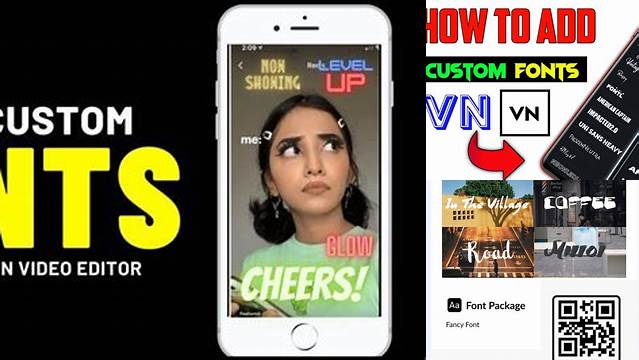
Best Fonts For VN Video Editor: Free Download Guide
Choosing the right font can significantly elevate your video editing projects in VN video editor. A great font not only makes your text look professional but also helps convey your message effectively. In this comprehensive guide, we’ll dive into the best fonts you can use for your VN video editor projects, where to find them for free, and how to install them. So, if you’re looking to add some visual flair to your videos, you’ve come to the right place! Let’s get started, guys!
1. Understanding the Importance of Fonts in Video Editing
Fonts are more than just letters; they are a crucial element in visual communication. In video editing, the right font can set the tone, enhance the message, and make your videos more engaging. Think about it – a playful font might be perfect for a kids' video, while a sleek, modern font would suit a tech review. The font you choose can influence how your audience perceives your content. Let's say you are making a tutorial video, a clear and legible font will ensure viewers can easily follow the instructions. On the other hand, for a cinematic vlog, a stylish and creative font can add to the aesthetic appeal. So, selecting the right font is not just about aesthetics; it's about creating an overall experience for your viewers. A great font acts as a silent narrator, adding depth and context to your visuals. Choosing the perfect fonts will enhance the professional look and feel of your video, making it stand out and capturing the attention of your audience. Experimenting with different font styles is key to finding the right fit for your projects. A good starting point is to consider the theme and mood of your video. Is it serious or lighthearted? Educational or entertaining? The font should complement the overall style of your content. For instance, if you’re creating a corporate video, you might opt for a clean and professional font like Helvetica or Arial. These fonts are easy to read and convey a sense of reliability. In contrast, if you’re working on a travel vlog, you might choose a more adventurous and unique font that reflects the excitement and spontaneity of travel. This could include handwritten-style fonts or fonts with a touch of personality.
2. Top Font Styles for VN Video Editor
When it comes to video editing with VN, certain font styles tend to work exceptionally well. Think about what makes a font truly stand out on screen. First, legibility is key. Your viewers need to be able to read the text quickly and easily, especially in fast-paced videos. So, fonts that are clear and uncluttered are generally a good choice. Secondly, consider the visual impact. A font should complement your video content, not distract from it. This means choosing a font that matches the tone and style of your video. For example, a sleek, sans-serif font might be perfect for a tech review, while a more decorative font could work well for a creative project. There are several broad categories of fonts that you can explore. Serif fonts, with their little decorative strokes, can add a touch of elegance and formality. Sans-serif fonts, which are cleaner and more modern, often work well for on-screen text. Script fonts can bring a personal and artistic touch, but they should be used sparingly to ensure readability. Display fonts are designed to be eye-catching and are great for titles and headings, but they might not be suitable for large blocks of text. Within these categories, there’s a huge range of styles to choose from. You might find a bold and impactful font that commands attention or a subtle and understated font that blends seamlessly into the background. The key is to experiment and see what works best for your particular project. Remember, the right font can make a big difference in how your video is perceived, so it’s worth taking the time to explore your options and find the perfect fit. Great typography is an art, and with VN video editor, you have the tools to express your creativity through fonts!
3. Serif Fonts for a Classic Look
Serif fonts are characterized by the small decorative strokes (or “serifs”) at the end of each character. This classic style of font often conveys a sense of elegance, tradition, and authority. In video editing, serif fonts can be a fantastic choice when you want to add a touch of sophistication or formality to your project. Imagine you are creating a historical documentary or a wedding video; a well-chosen serif font can enhance the overall feel and aesthetic. Some of the most popular serif fonts include Times New Roman, Garamond, and Georgia. These fonts are known for their readability and timeless appeal. However, it’s important to use them judiciously in video editing. Because of the serifs, these fonts can sometimes appear a bit cluttered on screen, especially in smaller sizes or with lower resolutions. Therefore, it's best to use serif fonts for titles, headings, or short text segments where clarity is still maintained. Think about the overall context of your video when deciding if a serif font is the right choice. If your video has a vintage or classic theme, a serif font can be a perfect fit. On the other hand, if you are aiming for a modern or minimalist look, a sans-serif font might be more appropriate. When using serif fonts, pay attention to spacing and kerning. Proper spacing between letters and lines is crucial for ensuring legibility. You might need to adjust these settings in your video editing software to achieve the best results. Also, consider the color of your font and the background. High contrast between the text and the background will make the font easier to read. White text on a dark background or vice versa is often a safe and effective choice. In conclusion, serif fonts are a valuable tool in your video editing arsenal, offering a timeless and elegant look. By understanding their strengths and limitations, you can use them effectively to enhance your videos and convey your message with style and sophistication.
4. Sans-Serif Fonts for a Modern Feel
Sans-serif fonts are known for their clean, modern, and minimalist appearance. Unlike serif fonts, they lack the small decorative strokes at the end of each character, giving them a more streamlined and contemporary look. In video editing, sans-serif fonts are incredibly versatile and widely used, especially for on-screen text where legibility is paramount. If you’re aiming for a sleek, professional, or tech-savvy vibe, sans-serif fonts are an excellent choice. Think about the kinds of videos where these fonts shine. They are perfect for explainer videos, tutorials, corporate presentations, and any content that needs to convey information clearly and efficiently. Some popular sans-serif fonts include Arial, Helvetica, Open Sans, and Roboto. These fonts are favored for their readability and simple aesthetics, making them easy on the eyes even in smaller sizes or at a distance. One of the key advantages of sans-serif fonts is their clarity on screens. The absence of serifs means the characters appear cleaner and less cluttered, which is particularly important for videos viewed on various devices, from large monitors to small smartphone screens. When using sans-serif fonts in your video projects, consider the overall tone and style of your content. A bold sans-serif font can make a strong statement in titles and headings, while a lighter weight might be better suited for body text or captions. The flexibility of sans-serif fonts also means they can be paired effectively with other font styles. For example, you might use a bold sans-serif font for titles and a serif font for longer text segments to create a visual contrast and enhance readability. Another important aspect to consider is the spacing and alignment of your text. Sans-serif fonts often look best with generous spacing between letters and lines, which helps to prevent the text from appearing too dense. Experiment with different alignments to see what works best for your layout. In summary, sans-serif fonts are a staple in modern video editing. Their clean lines and excellent readability make them a go-to choice for a wide range of projects, ensuring your message is delivered clearly and stylishly. By understanding how to use them effectively, you can create videos that look professional and engaging.
5. Script Fonts for an Elegant Touch
Script fonts are designed to mimic the flowing strokes of handwriting, giving them a personal, elegant, and often romantic feel. These fonts can add a touch of sophistication and artistry to your video projects, but they need to be used carefully to ensure readability. Imagine using a script font for the title of a wedding video or a heartfelt message in a personal vlog. When done right, script fonts can create a beautiful and memorable visual impact. However, because of their intricate and sometimes ornate designs, script fonts are not always the best choice for large blocks of text or situations where quick readability is essential. Some popular script fonts include Brush Script, Pacifico, and Great Vibes. These fonts range from casual and playful to formal and elegant, so there’s a wide variety to choose from depending on the mood you want to create. The key to using script fonts effectively in video editing is to reserve them for specific elements, such as titles, headings, or short quotes. Overusing script fonts can make your video look cluttered and difficult to read. Think of them as accents rather than the main body of your text. When selecting a script font, consider the overall style and tone of your video. A formal script font might be perfect for a wedding or anniversary video, while a more casual script font could work well for a creative project or personal vlog. It's also important to ensure the script font complements the other fonts you are using in your video. Pairing a script font with a clean sans-serif font can create a nice contrast and balance. Pay close attention to spacing and sizing when using script fonts. Because of their flowing lines, script fonts often require more spacing between letters and lines to maintain readability. Also, avoid using script fonts in small sizes, as the details can become lost and the text can become difficult to decipher. In conclusion, script fonts can add a touch of elegance and personality to your videos. By using them strategically and ensuring readability, you can create a sophisticated and visually appealing look that enhances your message and captivates your audience. Remember, a little goes a long way, so use script fonts thoughtfully to make the most impact.
6. Display Fonts for Eye-Catching Titles
Display fonts are designed to grab attention and make a statement. These fonts are typically more decorative and unique than standard fonts, making them ideal for titles, headings, and other prominent text elements in your videos. Imagine you’re creating a promotional video or a dynamic opening sequence; a well-chosen display font can instantly capture your viewer’s attention and set the tone for your content. Display fonts come in a vast range of styles, from bold and impactful to whimsical and playful. Some might have unusual shapes, textures, or decorative elements that set them apart from more traditional fonts. Popular examples include Impact, Bebas Neue, and Montserrat, but there are countless others to explore. The key to using display fonts effectively in video editing is to ensure they stand out without overwhelming the rest of your video. Because they are often highly stylized, display fonts are best used sparingly. Reserve them for key moments where you want to make a strong visual impression. Think about the overall theme and style of your video when selecting a display font. If you’re creating a high-energy action video, a bold and dynamic display font might be perfect. On the other hand, if you’re working on a more artistic or creative project, you might opt for a display font with a unique and expressive design. Avoid using display fonts for large blocks of text or captions, as their decorative nature can make them difficult to read. Instead, pair them with simpler fonts for body text to ensure clarity and balance. When using display fonts, pay attention to sizing and spacing. Because they are designed to be eye-catching, display fonts often look best in larger sizes. However, you also need to ensure they don’t dominate the screen or clash with other visual elements in your video. Proper spacing between letters and lines is also crucial for maintaining readability. In summary, display fonts are a powerful tool for creating visually striking videos. By using them strategically and considering the overall design of your project, you can add a unique and memorable touch that captivates your audience. Remember, the right display font can transform a title from ordinary to extraordinary, so take the time to explore your options and find the perfect fit.
7. Finding Free Fonts for VN Video Editor
One of the best things about video editing today is the abundance of resources available online, including a vast selection of free fonts. Finding high-quality fonts for your VN video editor projects doesn’t have to break the bank. There are numerous websites and online platforms that offer fonts for free, allowing you to add a professional touch to your videos without spending a dime. Guys, let’s explore some of the best places to find these fonts! A popular resource for free fonts is Google Fonts. This platform offers a wide variety of open-source fonts that are free to use for both personal and commercial projects. The fonts are well-organized, easy to browse, and can be downloaded directly to your computer. Plus, Google Fonts provides helpful information about each font, including its styles, pairings, and usage examples, making it easier to choose the right font for your project. Another fantastic website is DaFont. DaFont boasts an extensive collection of fonts, contributed by designers from around the world. The fonts are categorized by style, making it easy to find what you’re looking for, whether it’s a script font for a wedding video or a bold display font for a promotional clip. However, it’s important to pay attention to the licensing terms for each font on DaFont, as some may be free for personal use only. Font Squirrel is another great resource for free, high-quality fonts. What sets Font Squirrel apart is its focus on commercial-use fonts. This means that the fonts you find on this site are safe to use in your professional video projects without worrying about licensing issues. The website also offers a handy Font Identifier tool, which can help you identify a font you’ve seen elsewhere. 1001 Free Fonts is a website that lives up to its name, offering a huge selection of free fonts in various styles and categories. The site is easy to navigate, and the fonts are clearly labeled with their licensing terms. Like DaFont, it’s essential to double-check the license before using a font commercially. In addition to these websites, you can also find free fonts on platforms like Behance and Dribbble, where designers often share their creations for free or offer them as part of their portfolios. These sites can be a great source for unique and creative fonts that you won’t find anywhere else. In summary, finding free fonts for VN video editor is easier than you might think. With so many resources available online, you can access a vast library of fonts to enhance your videos and bring your creative vision to life. Just remember to always check the licensing terms to ensure you’re using the fonts appropriately.
8. Google Fonts: A Treasure Trove
Google Fonts is a true treasure trove for anyone looking for high-quality, free fonts for their video editing projects. This platform is a go-to resource for designers, video editors, and content creators worldwide, and for good reason. It offers a vast library of open-source fonts that are not only free to use but also incredibly versatile and easy to access. One of the standout features of Google Fonts is its user-friendly interface. The website is designed to make font discovery simple and intuitive. You can browse fonts by category (serif, sans-serif, display, handwriting, monospace), apply filters based on style and thickness, and even preview the fonts in different sizes and contexts. This makes it easy to find the perfect font for your VN video editor projects. Another major advantage of Google Fonts is that all the fonts are open-source. This means you can use them freely for both personal and commercial projects without worrying about licensing fees or restrictions. This is a huge benefit for video editors who want to maintain a professional look without incurring additional costs. The Google Fonts library is constantly growing, with new fonts being added regularly. This ensures that you always have fresh options to choose from and can keep your video projects looking modern and up-to-date. Whether you need a clean sans-serif font for an explainer video or a stylish script font for a wedding montage, you’re likely to find it on Google Fonts. Beyond just offering a wide selection of fonts, Google Fonts also provides helpful information and resources. Each font page includes details about the font’s designer, its history, and recommended pairings with other fonts. This can be incredibly useful for video editors who want to create a cohesive and visually appealing design. You can also test out the font with your own text and see how it looks in different sizes and styles. Integrating Google Fonts into your VN video editor workflow is seamless. You can download the fonts directly to your computer and install them, or you can use Google Fonts’ API to embed the fonts directly into your video editing software. This flexibility makes it easy to incorporate Google Fonts into any project. In summary, Google Fonts is an invaluable resource for video editors. Its vast library of free, high-quality fonts, user-friendly interface, and helpful resources make it a must-visit for anyone looking to enhance their video projects with beautiful typography. So, guys, if you haven’t already, be sure to check out Google Fonts and see what it has to offer!
9. DaFont: A Diverse Selection
DaFont is another fantastic online resource for finding a diverse selection of fonts that you can use in your VN video editor projects. This website has become a favorite among designers and content creators for its extensive library of fonts, contributed by designers from around the globe. Guys, if you’re looking for variety and unique font styles, DaFont is definitely worth exploring! One of the standout features of DaFont is its sheer size. The website boasts thousands of fonts, ranging from classic styles to quirky and creative designs. This means you can find a font to suit just about any video project, whether you’re working on a corporate presentation, a personal vlog, or a dynamic promotional video. DaFont’s fonts are organized into a variety of categories, making it easy to find what you’re looking for. You can browse by style (e.g., script, sans-serif, serif, display), theme (e.g., horror, comic, retro), or even by author. This makes it simple to narrow down your search and discover fonts that match your specific needs. Another great aspect of DaFont is the ability to preview fonts before you download them. You can type in your own text and see how it looks in each font, which helps you make an informed decision about whether it’s the right fit for your project. This feature saves you time and effort by allowing you to quickly evaluate different fonts without having to download and install them first. While many of the fonts on DaFont are free to use, it’s important to pay close attention to the licensing terms for each font. Some fonts may be free for personal use but require a license for commercial use. Always check the licensing information before using a font in a project that you plan to monetize or distribute professionally. Despite the licensing considerations, DaFont remains a valuable resource for video editors. The wide variety of fonts, user-friendly interface, and preview options make it a go-to destination for finding unique and creative typography. Whether you’re looking for a bold display font to grab attention or a delicate script font to add an elegant touch, DaFont has something for everyone. In summary, DaFont is a treasure trove of fonts that can help you elevate your VN video editor projects. With its diverse selection and easy-to-use interface, this website is a must-bookmark for anyone who values high-quality typography. So, guys, don’t hesitate to explore DaFont and discover the perfect fonts for your next video masterpiece!
14. Importing Fonts into VN Video Editor
Now that you've installed your new fonts on your device, the next step is to import them into VN video editor. This process allows you to use your custom fonts within the app, giving your videos a unique and personalized touch. Guys, let's walk through how to get those fonts into VN! The process for importing fonts into VN is relatively simple, but it can vary slightly depending on whether you're using the desktop or mobile version of the app. We'll cover both scenarios to ensure you're all set. On the mobile version of VN video editor (available for both iOS and Android), the process is quite straightforward. First, make sure that the font files (.ttf or .otf) are stored on your device. You can download them directly to your phone or tablet, or transfer them from your computer. Next, open the VN app and start a new project or open an existing one. To add text to your video, tap the